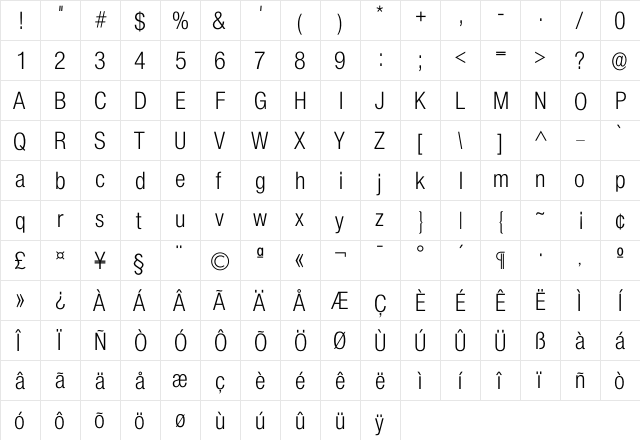
Colnova Regular
Design Context for Colnova Typeface
Colnova offers clean, dependable letterforms without strong stylistic allegiance, making it a practical choice for designers who need flexibility.